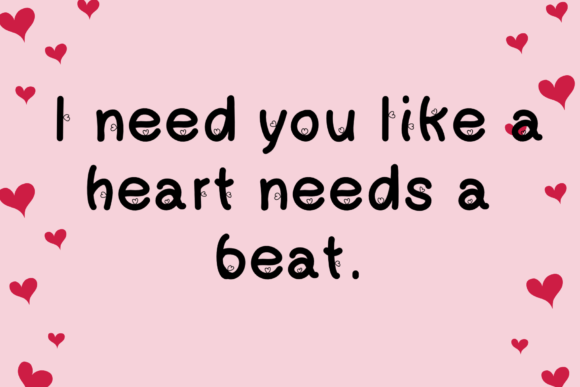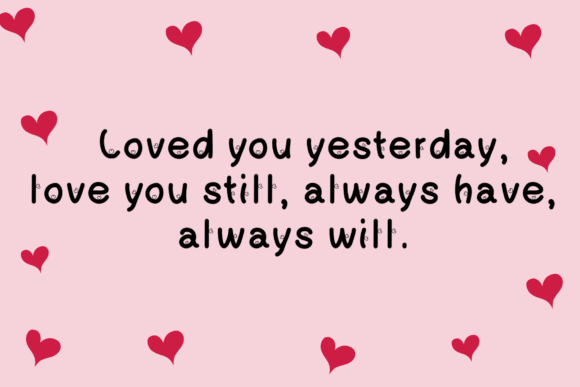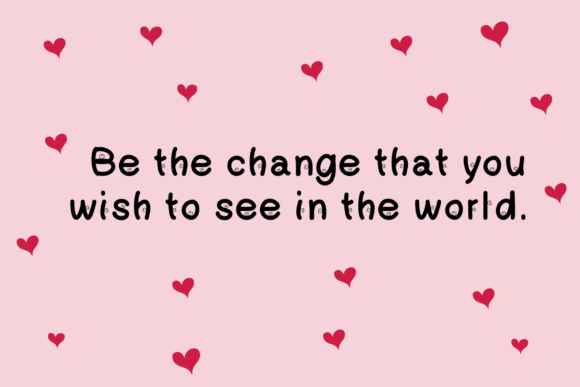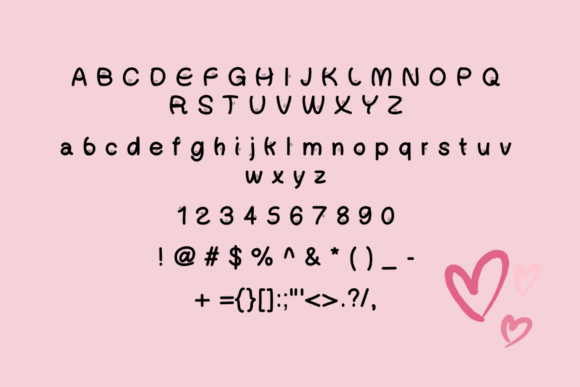
The Designer’s Delight: Hearty Font
I’ll never forget the time I was working on a project for a cozy bookstore, and I just couldn’t find the right font to capture their warm and inviting atmosphere. The client was specific: they wanted something handwritten, yet elegant. I scoured the internet, tried out countless fonts, but nothing seemed quite right. That’s when I stumbled upon Hearty Font. It was like a breath of fresh air – the perfect blend of whimsy and sophistication. In this article, I’ll share my love for Hearty Font, its features, and how to make the most of it in your designs.
An Honest Review of Hearty Font
- ✨ Unique Character: Hearty Font has a distinct, handwritten feel that sets it apart from other fonts.
- ✅ Versatility: It’s perfect for a wide range of projects, from branding and advertising to packaging and invitations.
- 💫 Readability: Despite its whimsical nature, Hearty Font is surprisingly easy to read, even at smaller sizes.
- 🎨 Creative Freedom: With its extensive range of glyphs and stylistic alternates, Hearty Font gives you the freedom to experiment and create something truly unique.
While Hearty Font is an excellent choice for many projects, there are a few things to keep in mind:
- 🤔 Limited Use in Body Text: Due to its handwritten nature, Hearty Font might not be the best choice for lengthy body text. It’s better suited for headings, titles, or short paragraphs.
- ⚠️ Kerning Issues: As with any font, you might encounter some kerning issues, especially when using it at smaller sizes or in combination with other fonts.
A Practical Guide to Using Hearty Font
- Experiment with OpenType features like ligatures and stylistic alternates to add some personality to your text.
The Backstory of Hearty Font
Hearty Font was designed with love and care by a talented type designer who wanted to create a font that would bring warmth and personality to any design. Inspired by traditional handwriting and calligraphy, Hearty Font is the perfect blend of classic and modern.
Q: Is Hearty Font suitable for body text?
A: While Hearty Font is easy to read, it’s better suited for headings, titles, or short paragraphs. For lengthy body text, consider using a more traditional font.
Q: Is Hearty Font available in different languages?
A: Hearty Font may not have extensive language support, but it does include some basic characters and glyphs. Be sure to check the font’s capabilities before using it for a multilingual project.